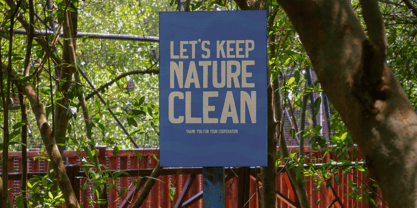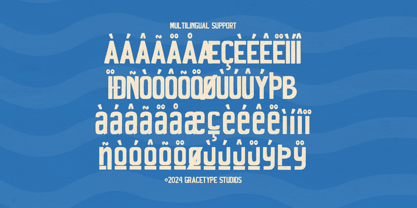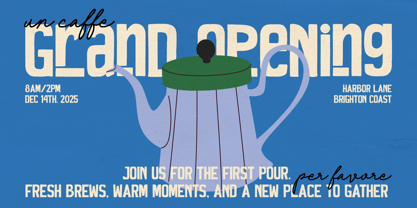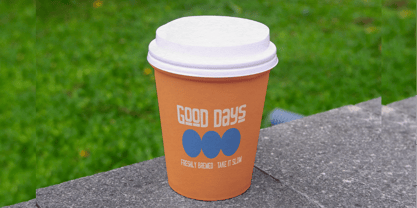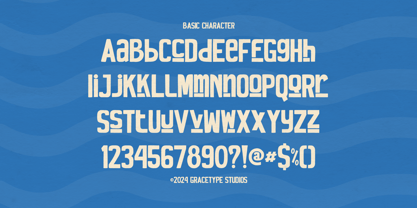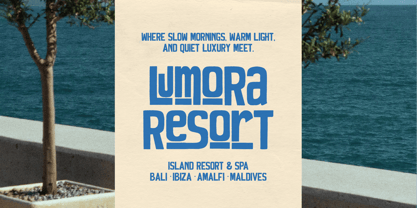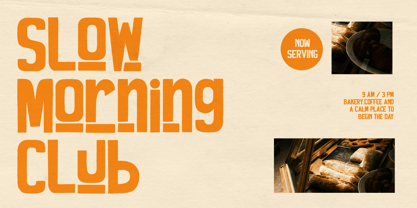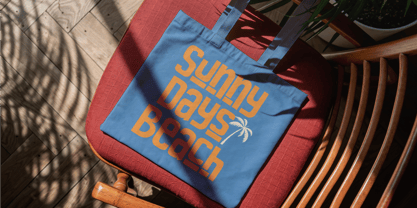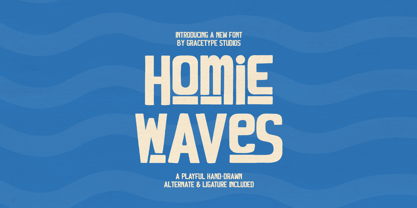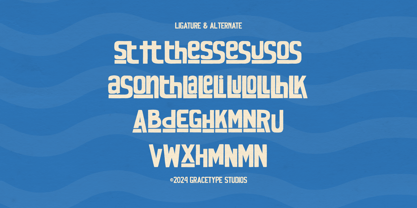
Homie Waves
Homie Waves | Playful Hand Drawn, from Gracetypestudio, suitable for any projects such as: logos, branding projects, homeware designs, product packaging, mugs, quotes, posters, shopping bags, t-shirts, book covers, name card, invitation cards, greeting cards, label, photography, watermark, special events, and all your other lovely projects that need a Hand Drawn taste.